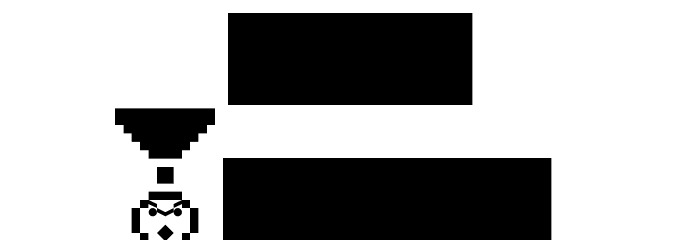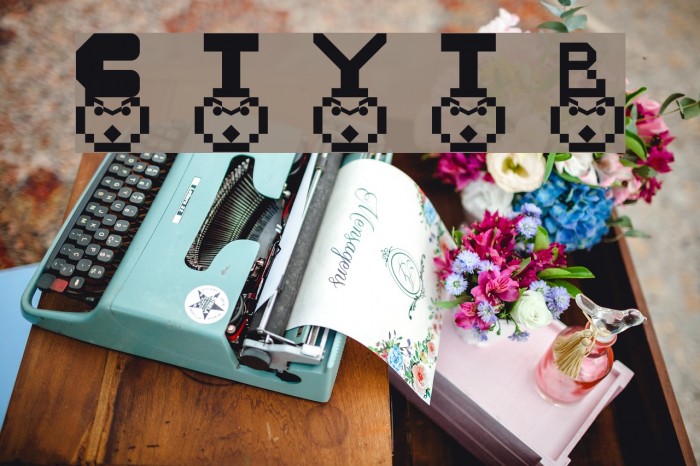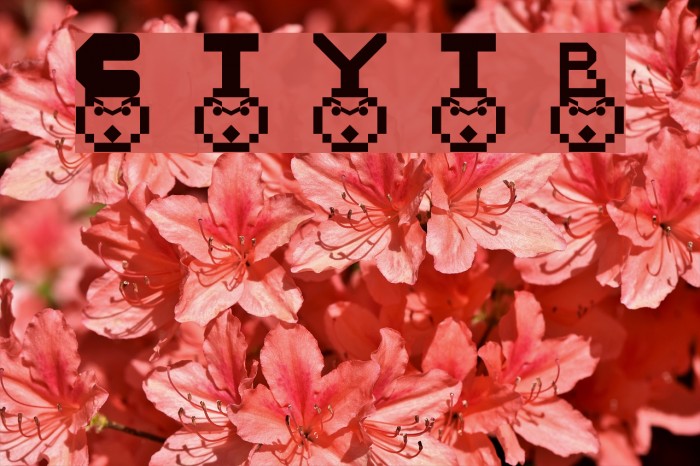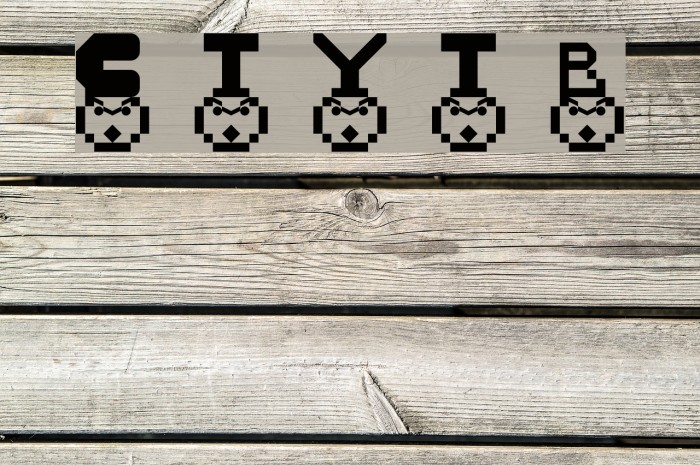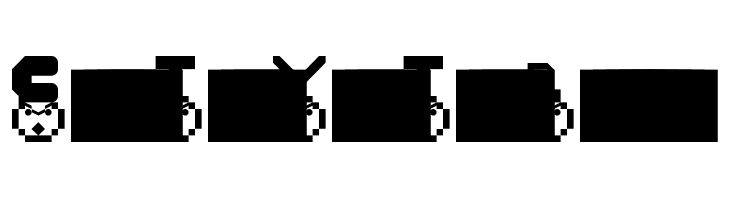
Cesur Type Yaz1 Tipi Regular Font
This font features a unique pixelated design, reminiscent of early digital or video game typography. Each character is constructed with a blocky, grid-like appearance, giving it a retro and playful aesthetic. The uppercase letters are bold and distinct, while the lowercase letters maintain the same pixelated style, ensuring consistency across the typeface. Numbers and special characters follow the same design principles, making the font versatile for various uses. The overall look is both nostalgic and modern, appealing to projects that aim to evoke a sense of digital nostalgia or a tech-inspired theme.
A pixelated, retro-style font with a blocky, digital aesthetic.
- Proposed Projects: Ideal for video game design, retro-themed posters, digital art projects, and tech-related branding.
- Overall Style: Retro, Digital